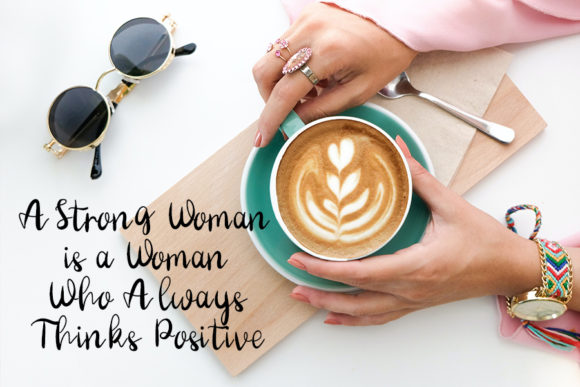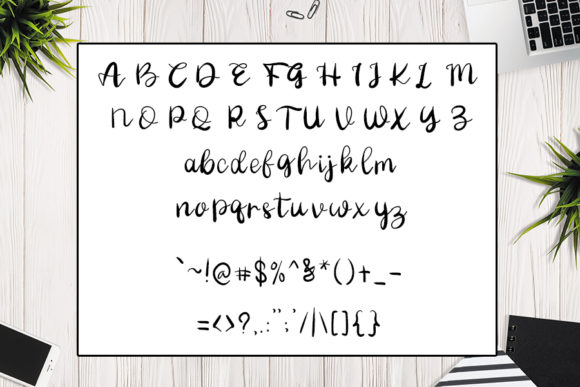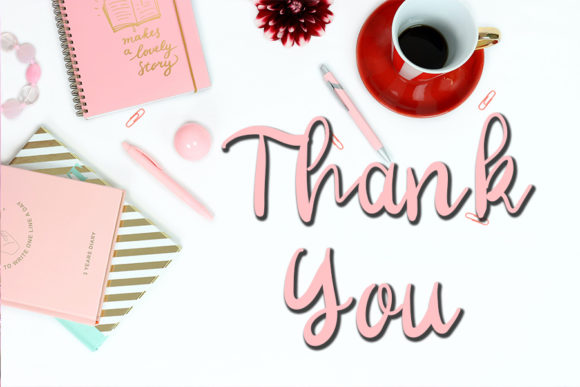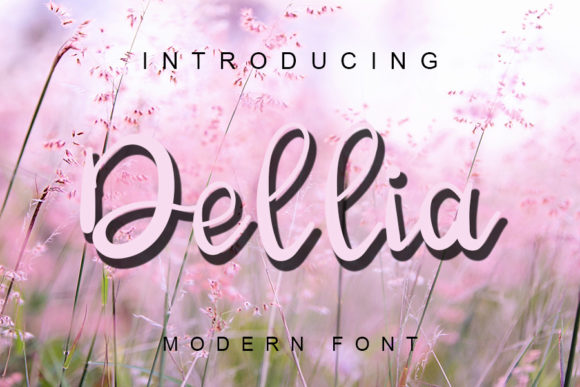
Dellia Font: Elevate Your Designs with Whimsical Elegance
Are you searching for a font that adds a touch of magic to your designs? Look no further than Dellia Font, a bold and beautiful script font that is sure to make your creations stand out. With its whimsical swashes and dreamy feel, Dellia is the perfect choice for designers and crafters looking to add a romantic touch to their work.
What is Dellia Font?
Dellia Font is a stunning script font that features elegant, cursive letters with intricate swashes. Its bold and beautiful design makes it perfect for a variety of projects, from valentine’s day cards and wedding invitations to quotes and wall art. Whether you’re a professional designer or a crafty DIY enthusiast, Dellia Font is sure to inspire your creativity.
Key Features of Dellia Font
- Bold and Beautiful Design: Dellia Font features a stunning, bold design that is sure to grab attention.
- Whimsical Swashes: The font’s intricate swashes add a touch of magic to your designs.
- Dreamy Feel: Dellia Font has a romantic, dreamy quality that makes it perfect for projects that require a touch of elegance.
- Versatile: Use Dellia Font for a variety of projects, from digital designs to print crafts.
Uses for Dellia Font
Dellia Font is perfect for a wide range of projects, including:
- Valentine’s Day Cards: Add a romantic touch to your valentine’s day cards with Dellia Font.
- Wedding Invitations: Make your wedding invitations truly special with this beautiful script font.
- Quotes and Wall Art: Use Dellia Font to create stunning quotes and wall art that will inspire and delight.
- Crafts: Add a touch of elegance to your crafts, from scrapbooking to card making.
Why Choose Dellia Font?
With so many fonts to choose from, why should you choose Dellia Font? Here are just a few reasons:
- Unique Design: Dellia Font features a unique and beautiful design that will set your projects apart.
- High-Quality: Dellia Font is a high-quality font that will look great in any project.
Tips for Using Dellia Font
Here are a few tips for using Dellia Font in your projects:
- Experiment with Swashes: Don’t be afraid to experiment with the font’s swashes to create unique and interesting designs.
- Pair with Other Fonts: Try pairing Dellia Font with other fonts to create a stunning contrast.
- Use in Digital Designs: Dellia Font looks great in digital designs, from social media graphics to website headers.
Dellia Font is a beautiful and versatile script font that is sure to elevate your designs. With its bold and beautiful design, whimsical swashes, and dreamy feel, it’s the perfect choice for designers and crafters looking to add a romantic touch to their work. Whether you’re creating valentine’s day cards, wedding invitations, quotes, or wall art, Dellia Font is sure to make your projects stand out.